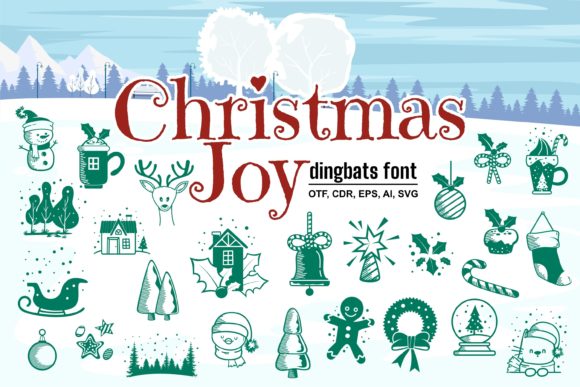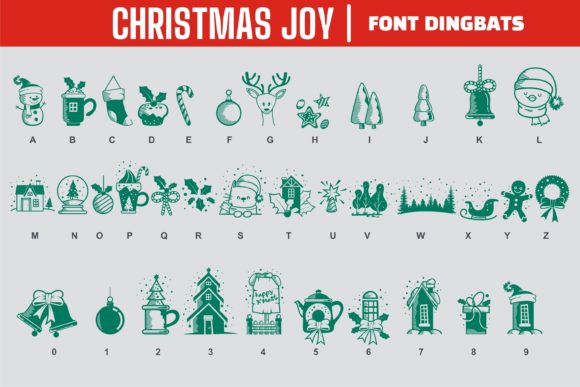
Christmas Joy Font
Christmas Joy is a sweet, festive and warm dingbats font. It will enhance each of your winter related or Christmas designs. The only limit is your imagination.